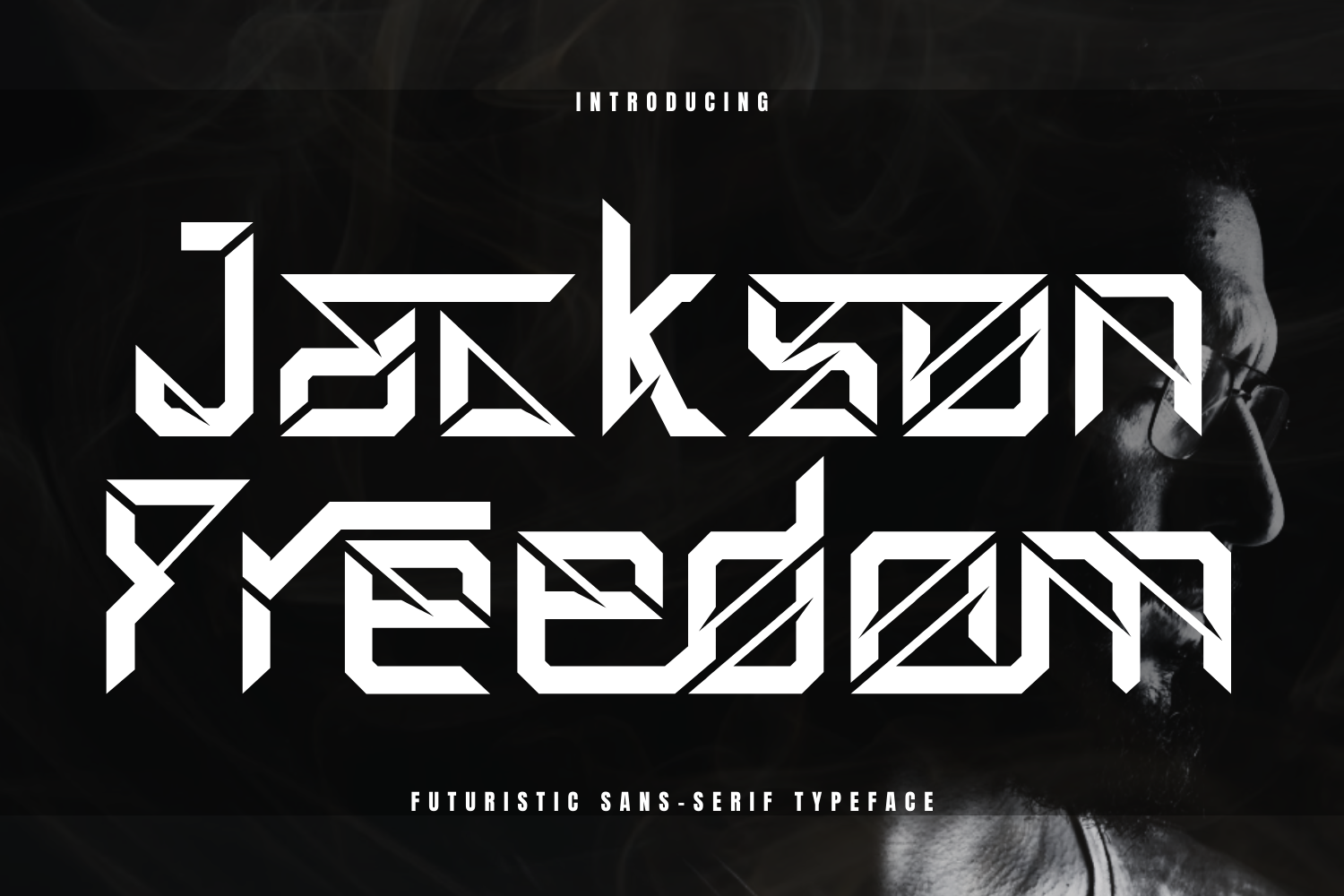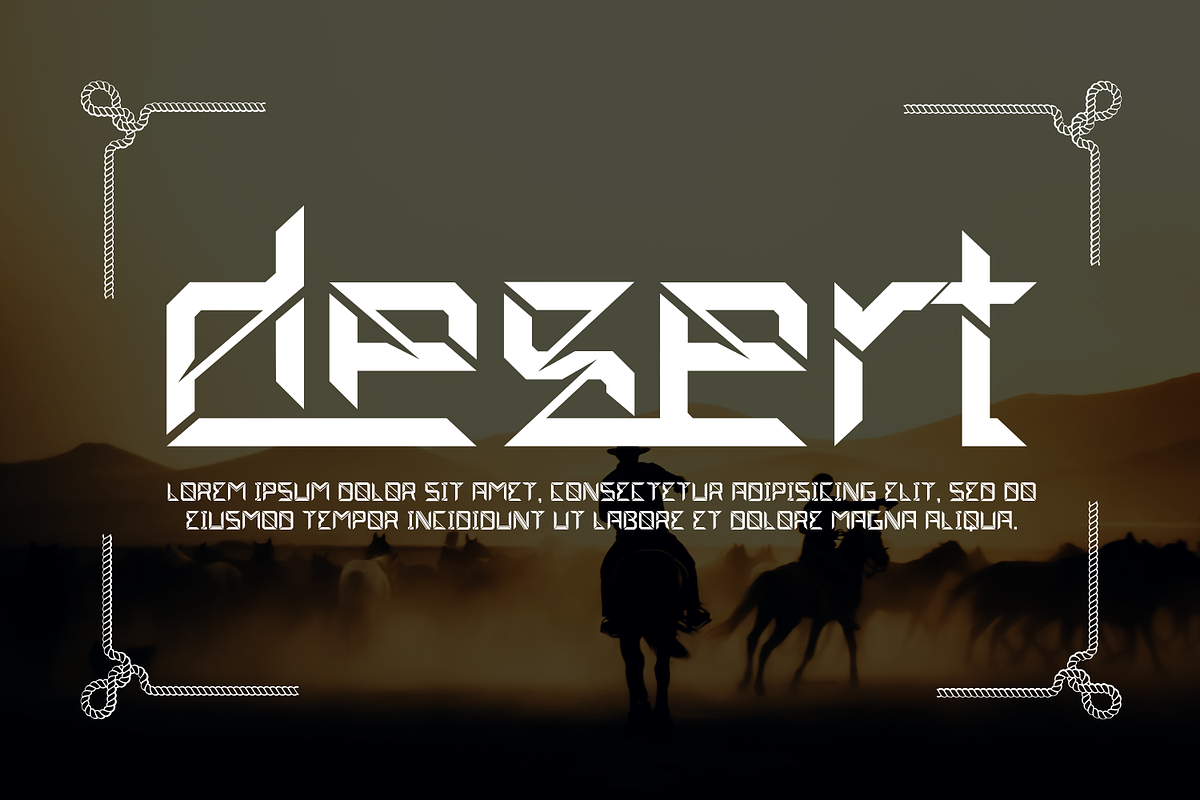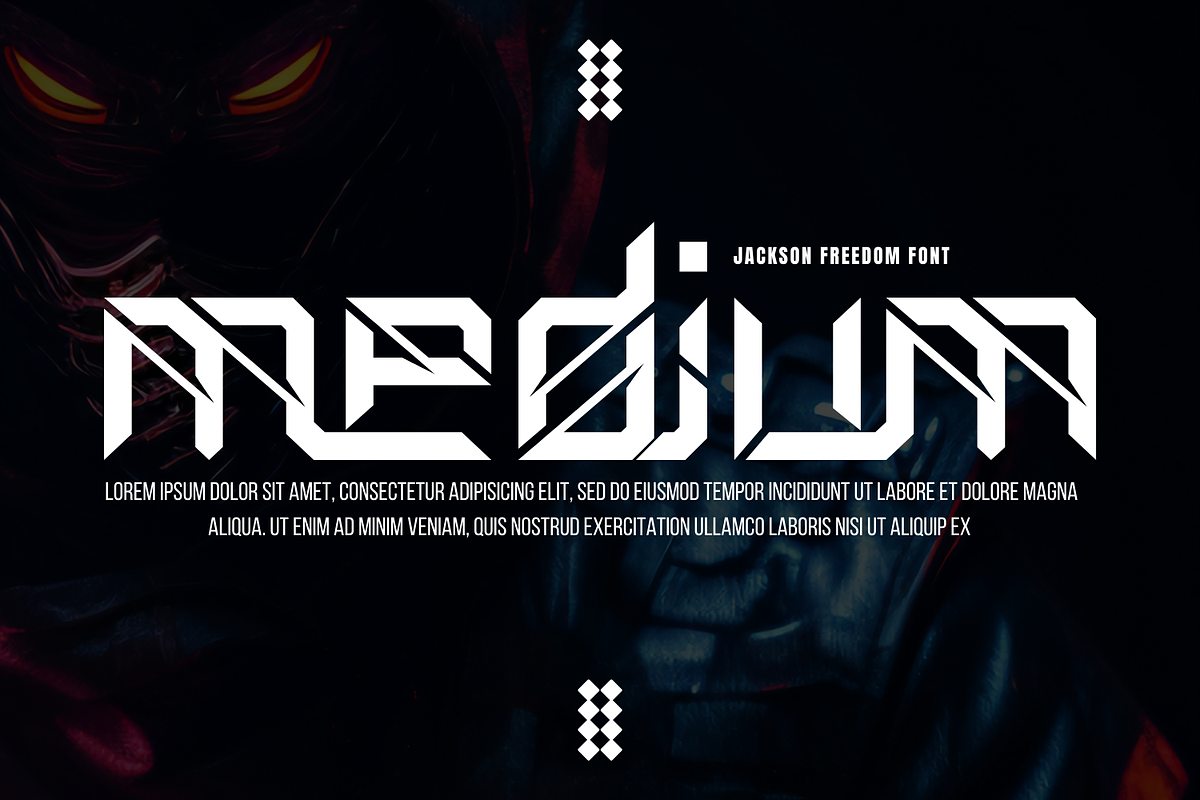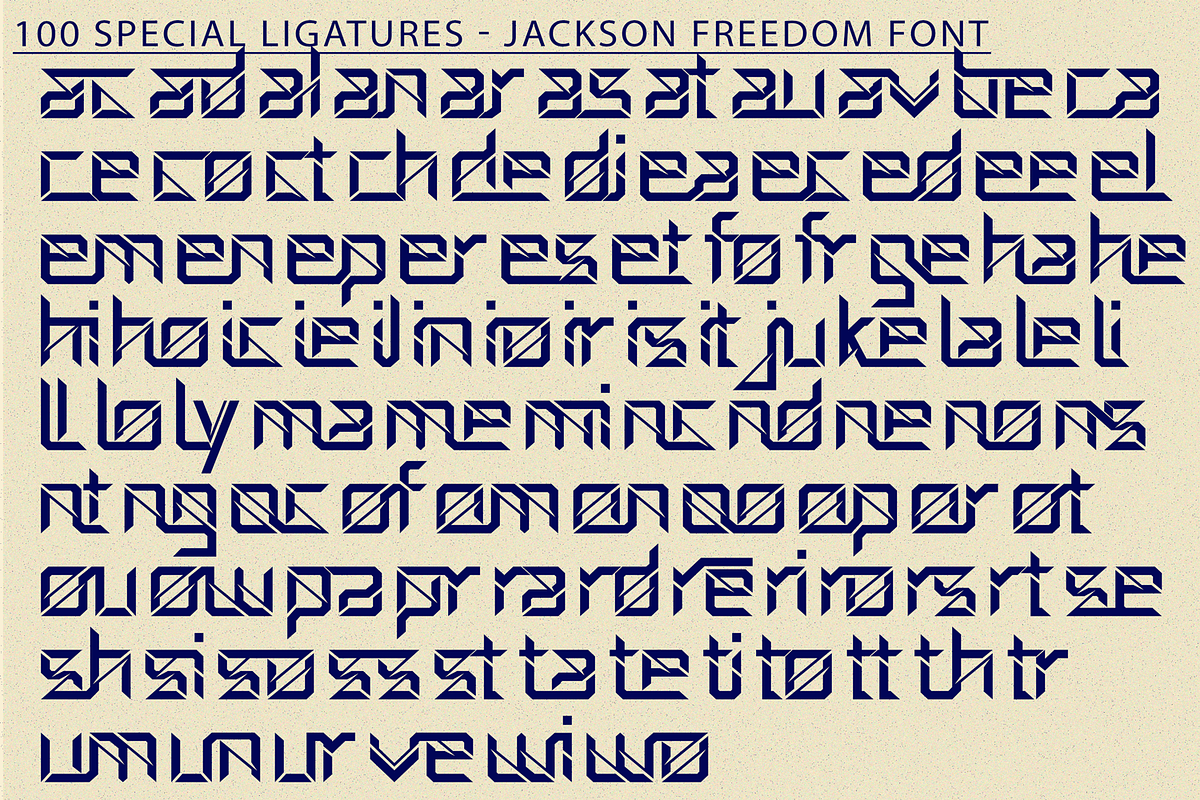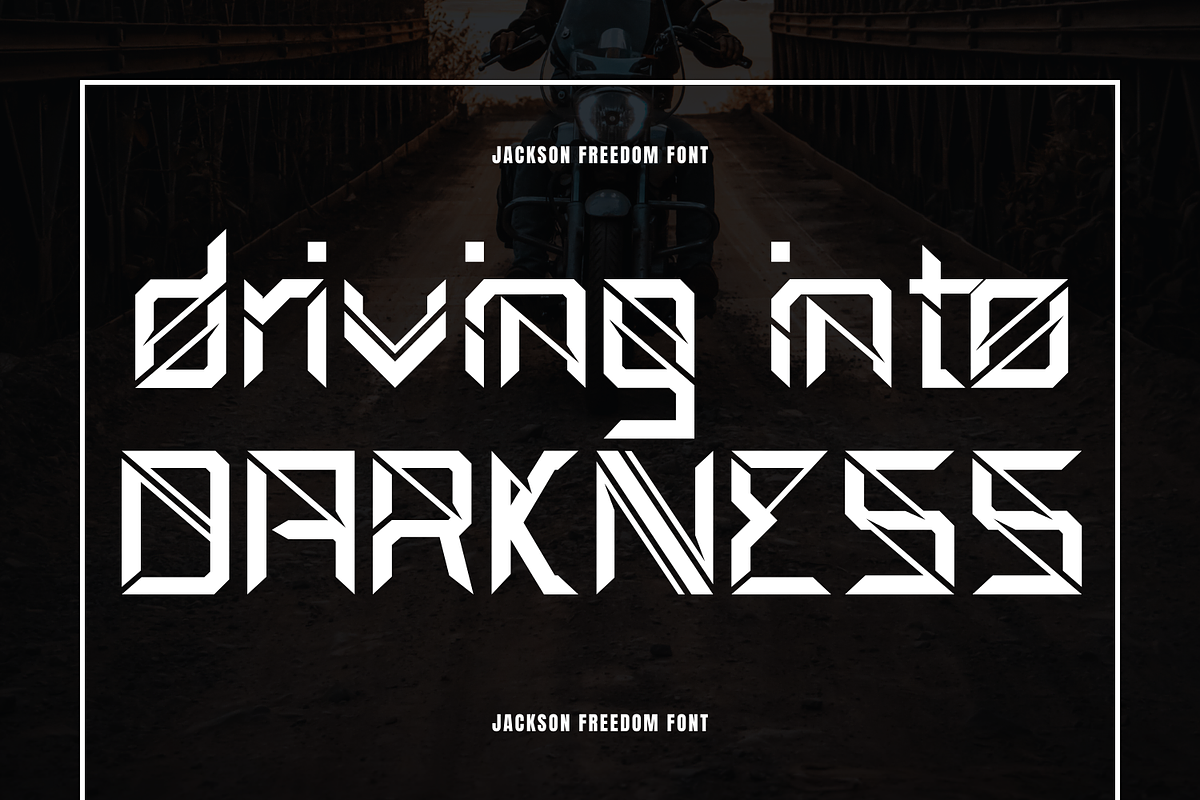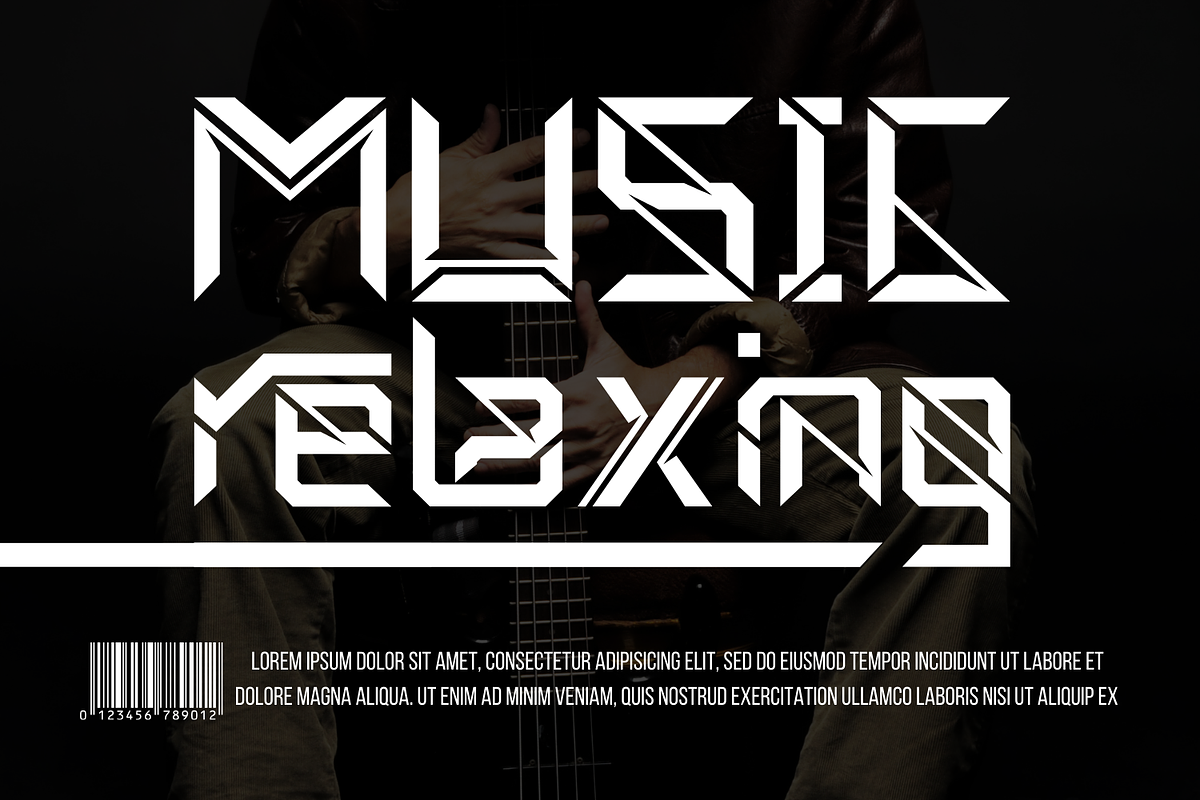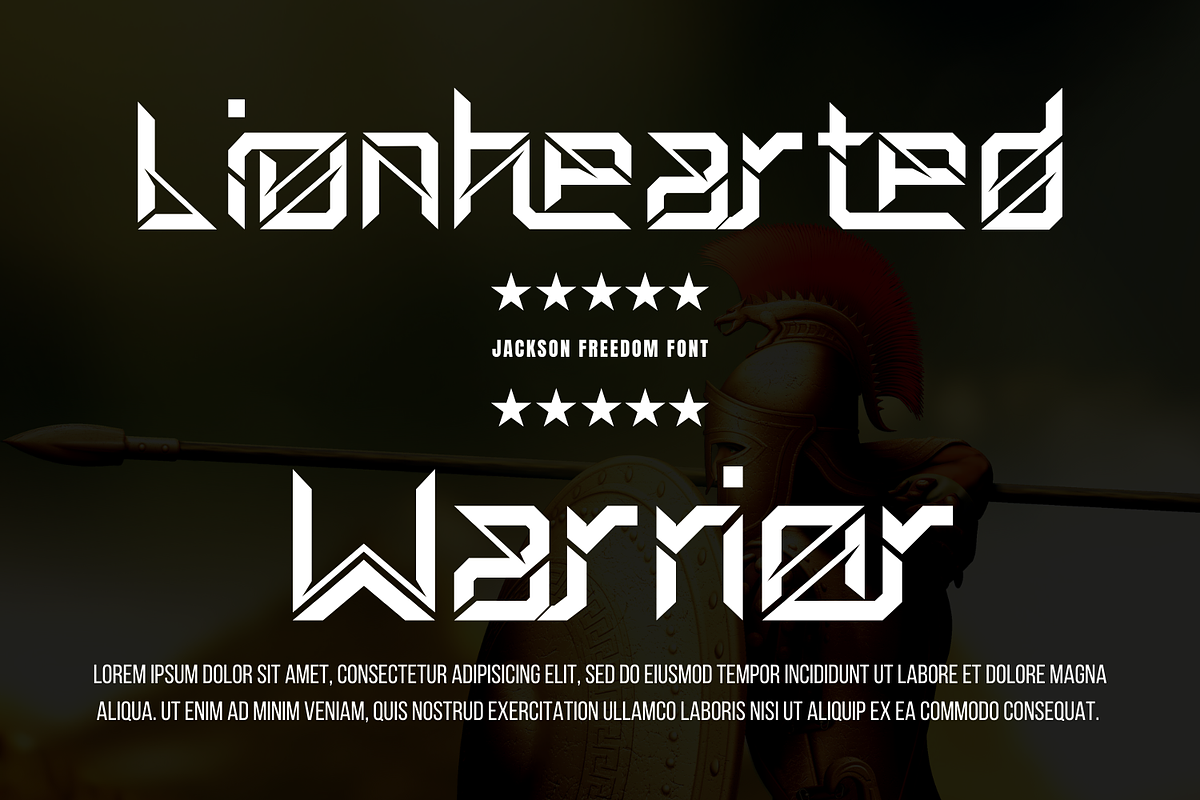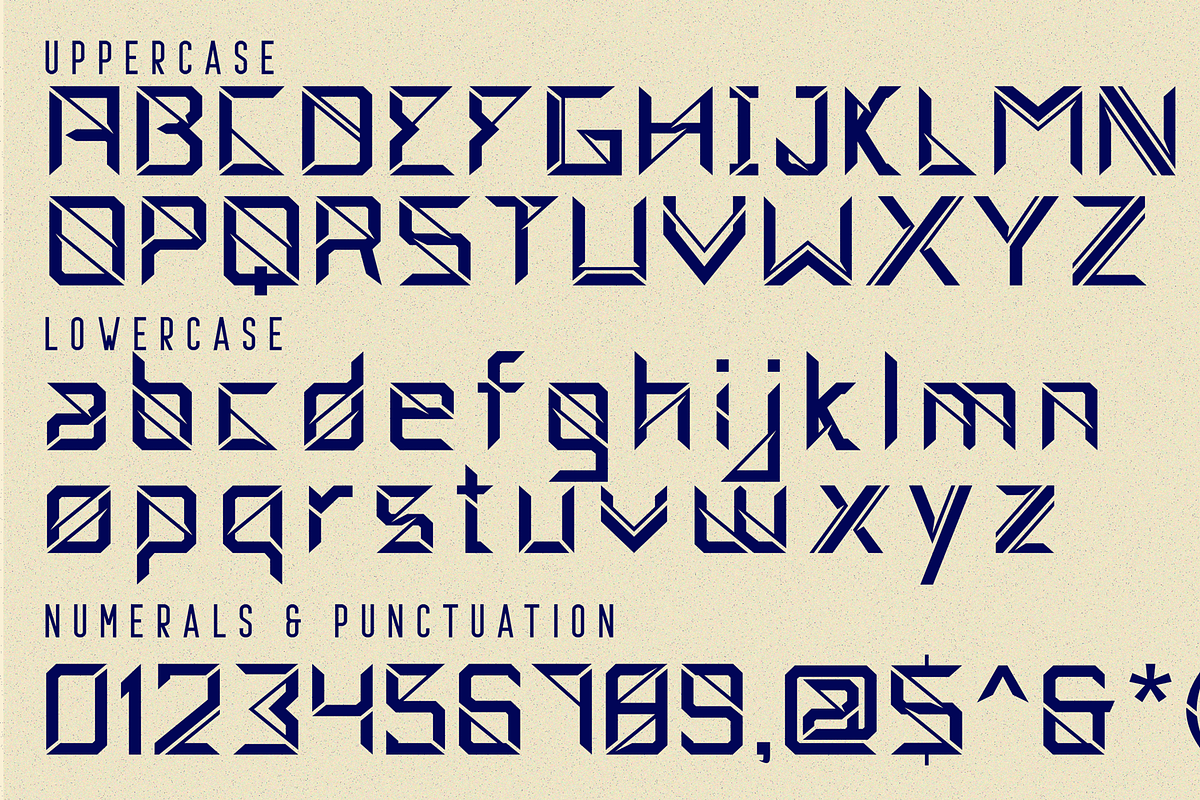
Jackson Freedom - Futuristic Font
Jackson Freedom - Futuristic Font – A Futuristic Geometric Display Font, a bold and futuristic display font designed with sharp angles, geometric precision, and cutting-edge style. Each letterform embodies strength and innovation, making it the perfect choice for projects that demand a modern and striking visual presence. With its edgy construction and tech-inspired design, Jackson Freedom is ideal for esports branding, sci-fi posters, music covers, gaming interfaces, futuristic logos, and any project that seeks to stand out with a bold, avant-garde aesthetic.
- Uppercase & Lowercase Letters
- ~100 Futuristic Ligatures
- Accented Characters for multilingual support
About 100 ligatures combined with Stylistic Alternates Font:
ac ad al an ar as at au av be ca ce ch co ct de di ea ec ed ee el em en ep er es et fe fo fr ge ha he hi ho ie ic il in io ir is it ju ke la le li ll lo ly ma me mi nc nd ne ng no nt ns oc of om on oo op or ot ou ow pa pr ra rd re ri ro rs rt se sh si so ss st ta te th ti to tr tt um un ur ve wi wo